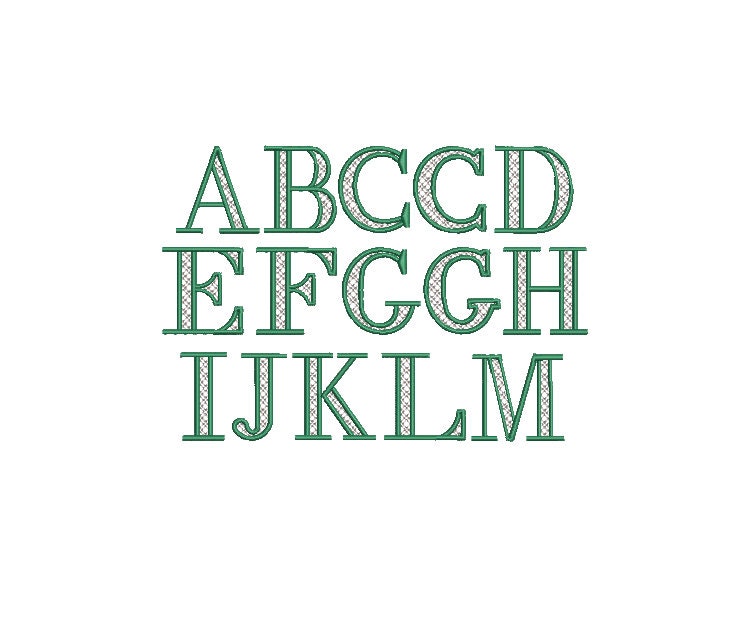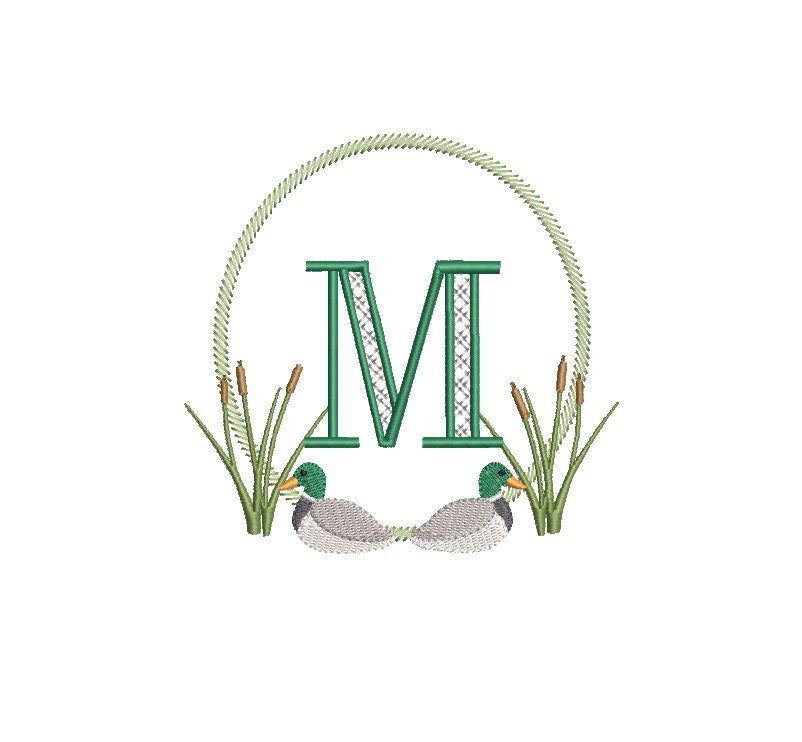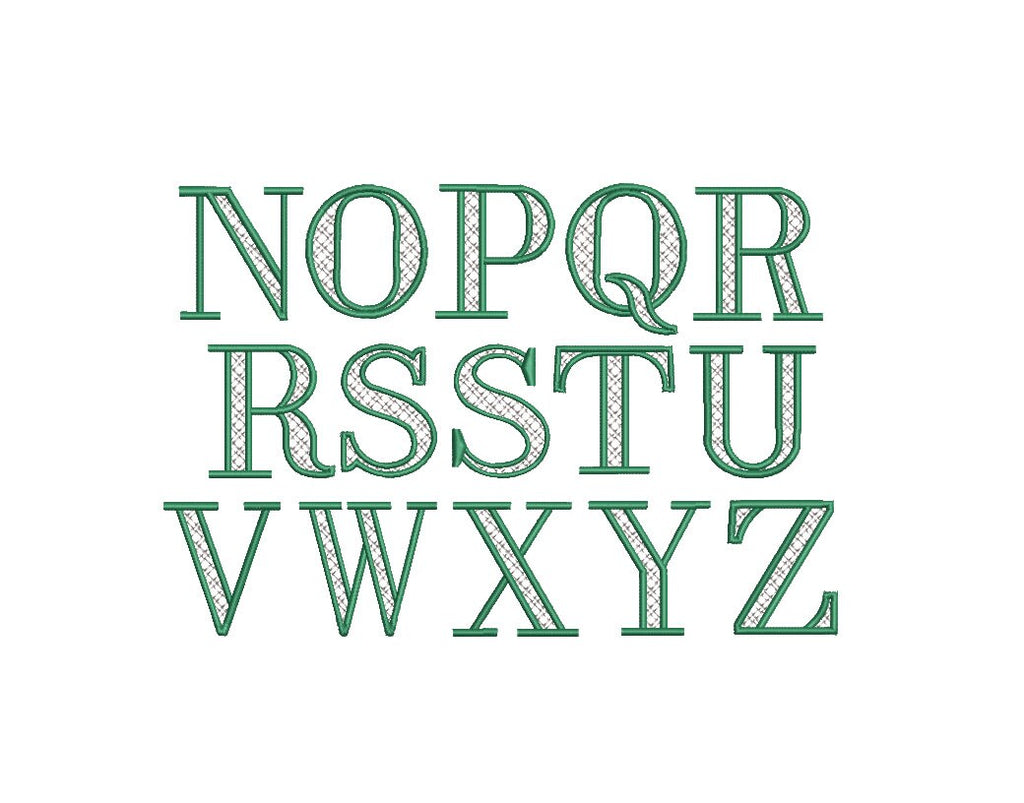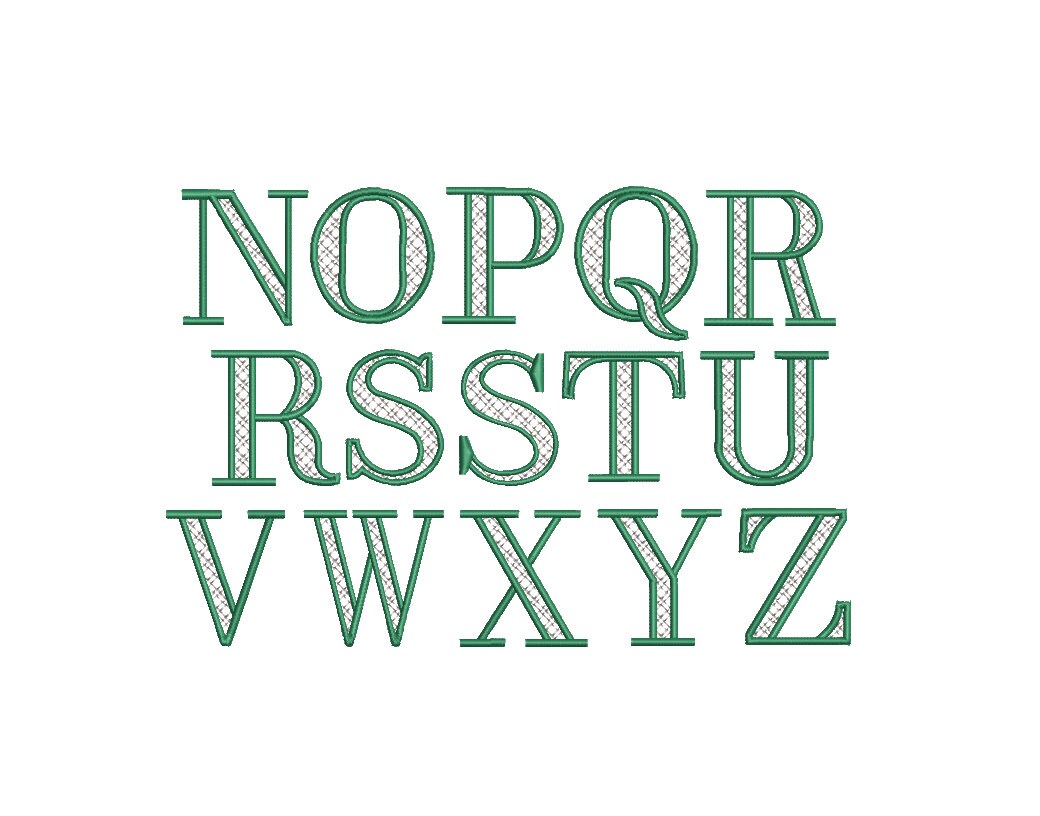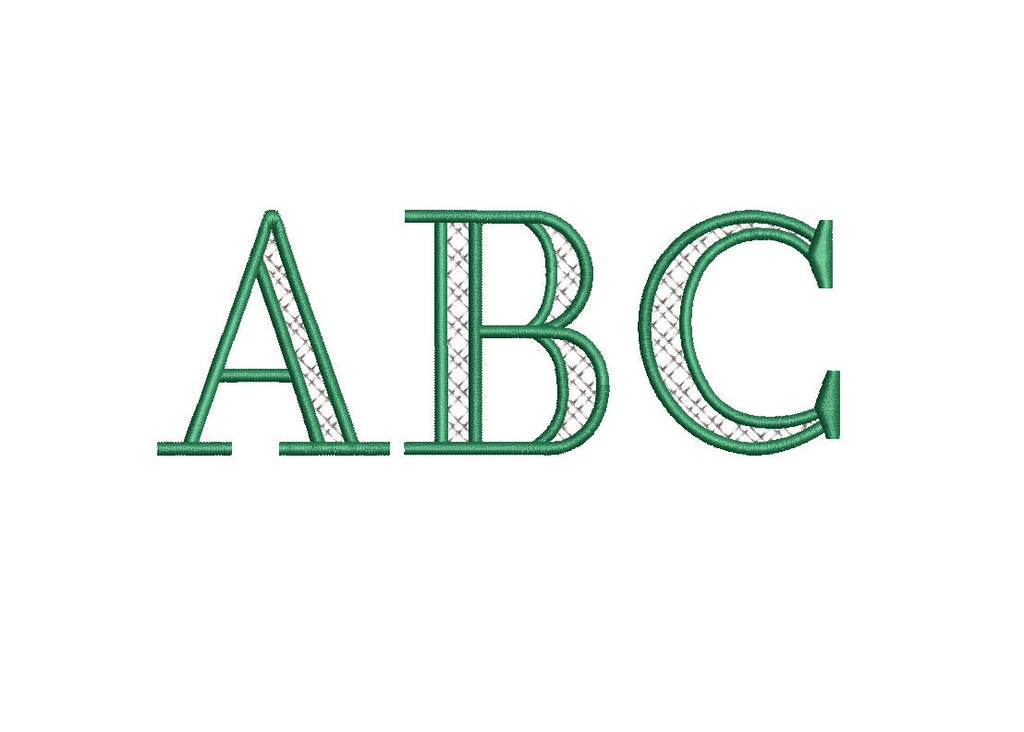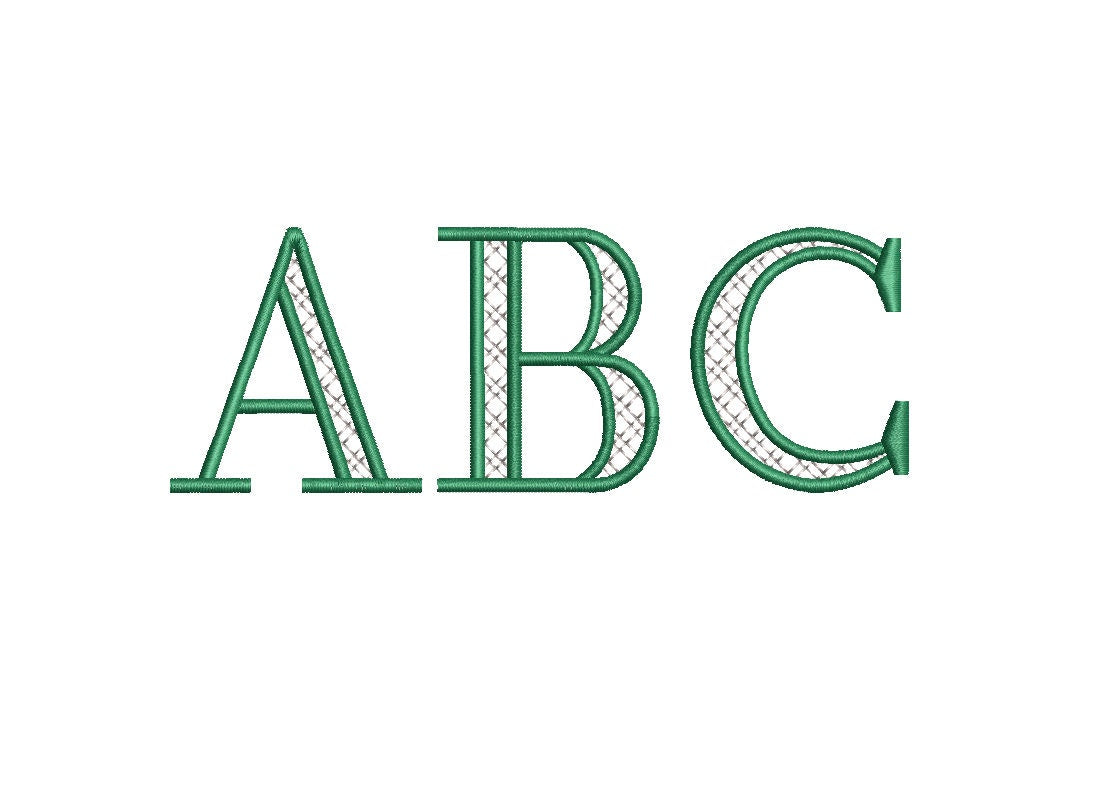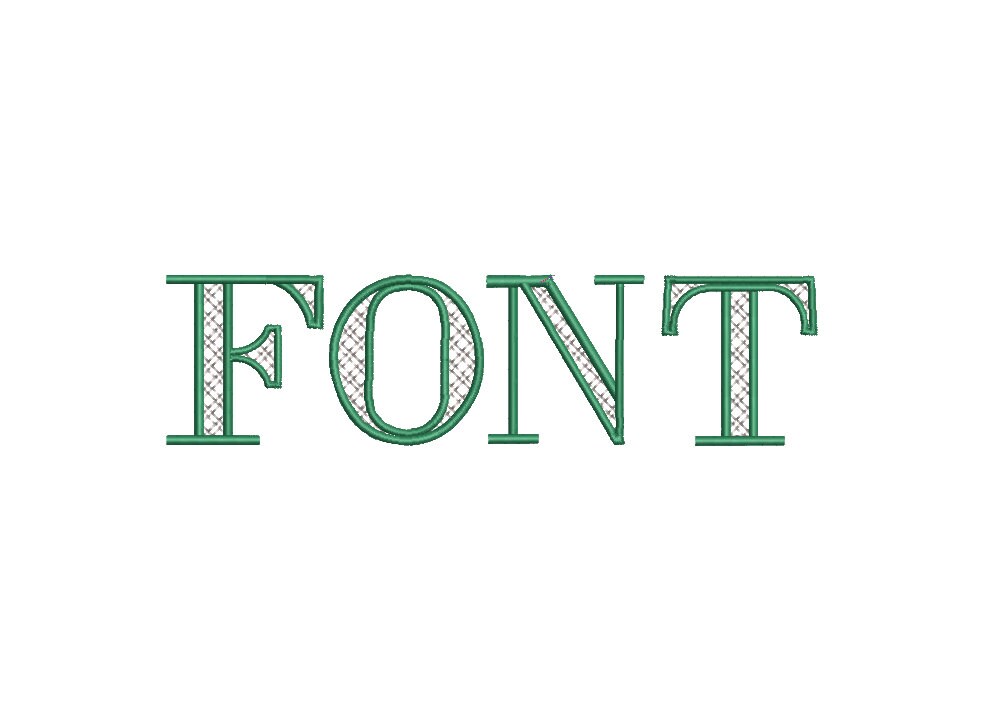
This is a DIGITAL only instant download of a Two Color Lattice Open Fill Motif Serif All Caps font machine embroidery design offered in 6 sizes, 8 machine formats and now in BX! Perfect for embroidering on just about anything needing a regal font!